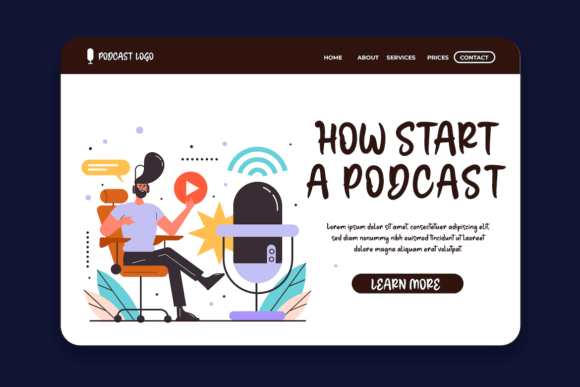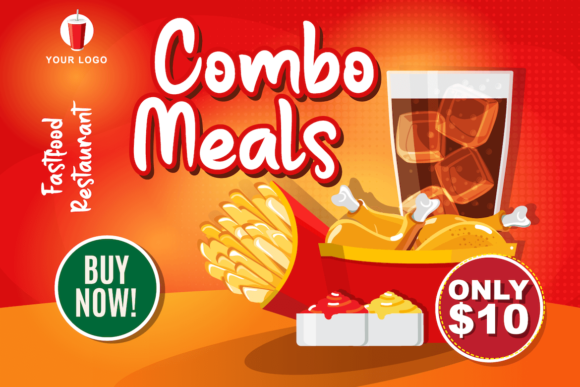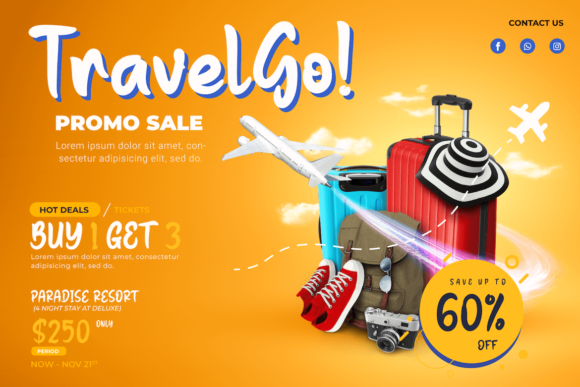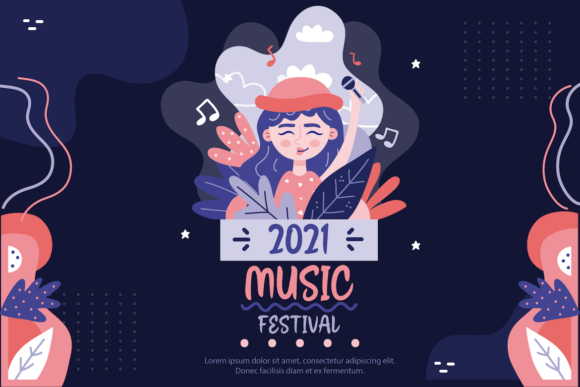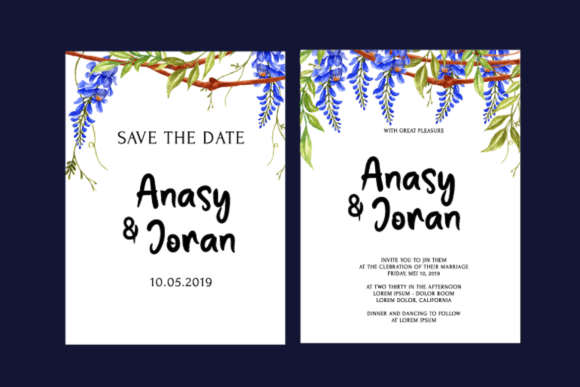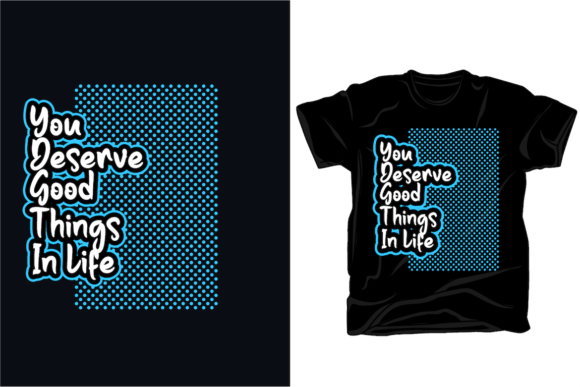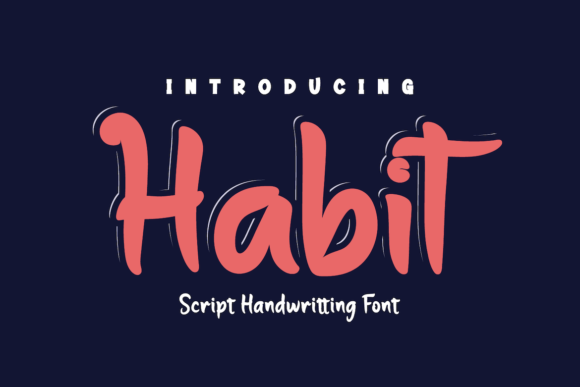
Habit Font: Elevate Your Designs with a Chic and Trendy Paint Brushed Handwritten Font
In the world of design, fonts play a crucial role in conveying the tone and personality of a brand or project. A well-chosen font can make all the difference in creating a lasting impression on your audience. If you’re a designer or crafter looking for a font that can add a touch of elegance and sophistication to your work, look no further than Habit Font. In this article, we’ll explore the features and benefits of Habit Font, and why it’s a must-have addition to your font library.
What is Habit Font?
Habit Font is a chic and trendy paint brushed handwritten font that is perfect for a wide range of design projects. Its unique and stylish appearance makes it an incredibly versatile font that can be used for everything from branding and advertising to packaging and digital media. Whether you’re creating a logo, brochure, or social media graphic, Habit Font is sure to elevate your design and make it stand out from the crowd.
Key Features of Habit Font
So, what makes Habit Font so special? Here are just a few of its key features:
- Handwritten style: Habit Font has a beautiful, handwritten style that gives it a personal and authentic feel.
- Paint brushed effect: The font features a paint brushed effect that adds texture and depth to your designs.
- Chic and trendy: Habit Font is a chic and trendy font that is perfect for designers and crafters who want to create modern and stylish designs.
- Highly versatile: The font is highly versatile and can be used for a wide range of design projects, from branding and advertising to packaging and digital media.
Benefits of Using Habit Font
So, why should you choose Habit Font for your design projects? Here are just a few of the benefits of using this amazing font:
- Elevate your designs: Habit Font has the potential to elevate any creation and make it stand out from the crowd.
- Save time: With Habit Font, you can create professional-looking designs in no time, saving you time and effort.
- Increase brand recognition: The unique and stylish appearance of Habit Font can help to increase brand recognition and create a lasting impression on your audience.
- Perfect for crafters: Habit Font is also perfect for crafters who want to add a personal touch to their DIY projects.
How to Use Habit Font
Using Habit Font is easy! Here are just a few tips to get you started:
- Pair it with other fonts: Habit Font pairs well with other fonts, so feel free to experiment with different combinations to create a unique look.
- Use it for headlines: The font is perfect for headlines and titles, where its bold and stylish appearance can really make an impact.
- Add a personal touch: Use Habit Font to add a personal touch to your designs, whether you’re creating a logo, brochure, or social media graphic.
In conclusion, Habit Font is a must-have addition to any designer’s or crafter’s font library. Its unique and stylish appearance, combined with its versatility and ease of use, make it the perfect font for a wide range of design projects. Whether you’re looking to elevate your designs, save time, or increase brand recognition, Habit Font is the perfect choice. So why wait? Download Habit Font today and start creating stunning designs that will leave a lasting impression on your audience!